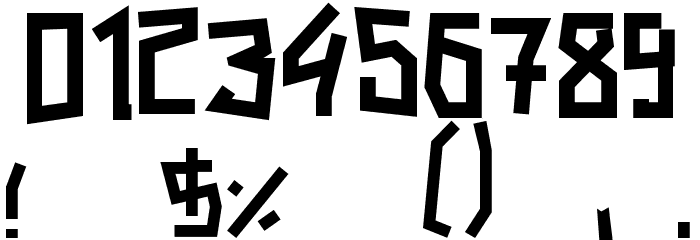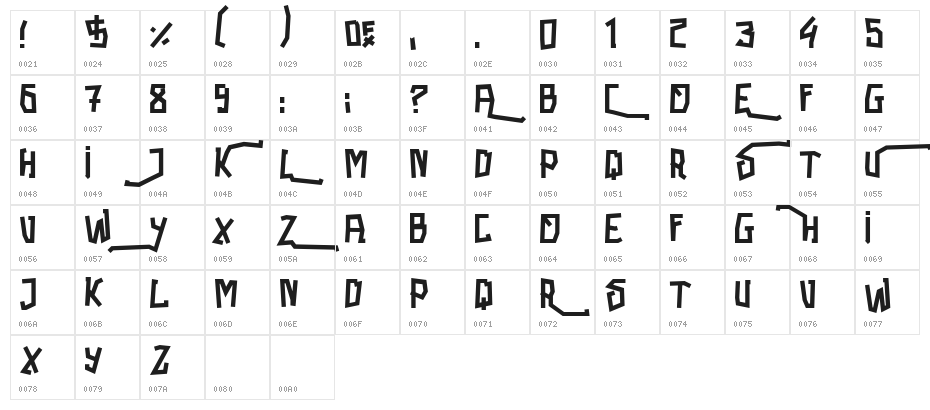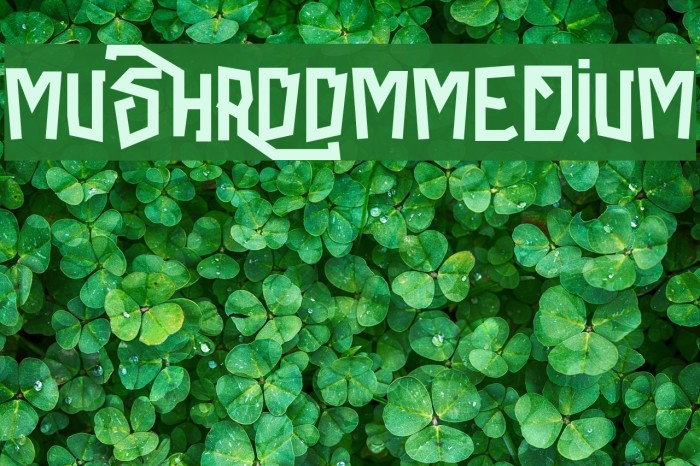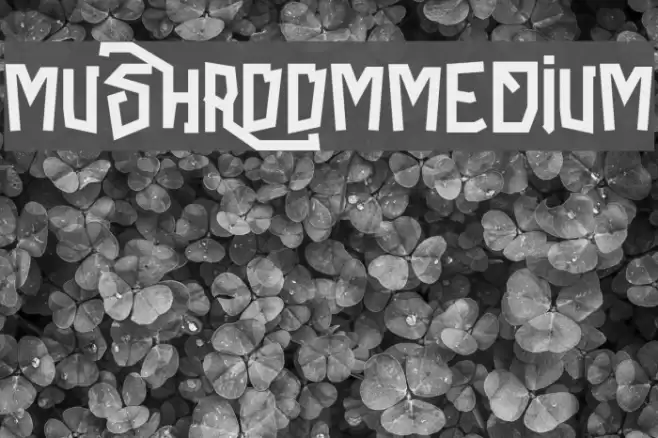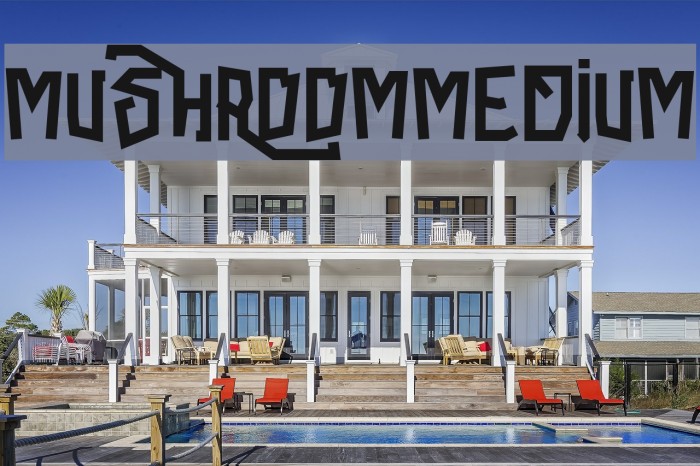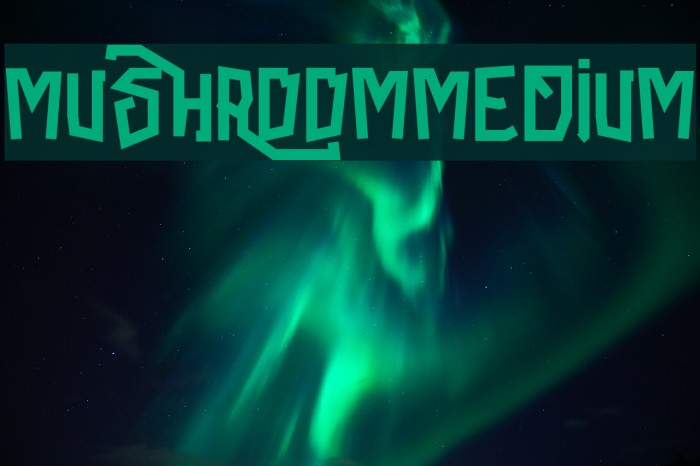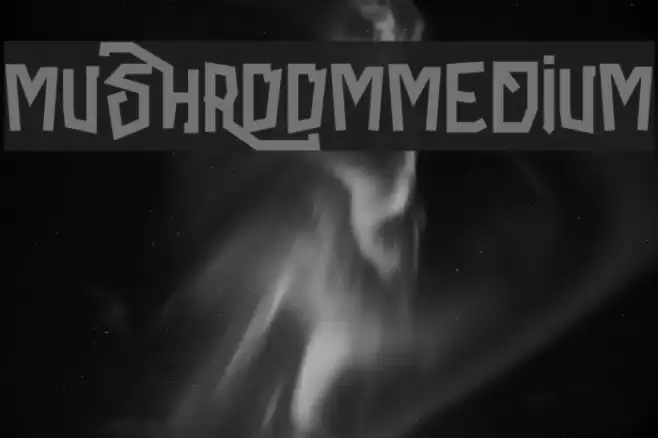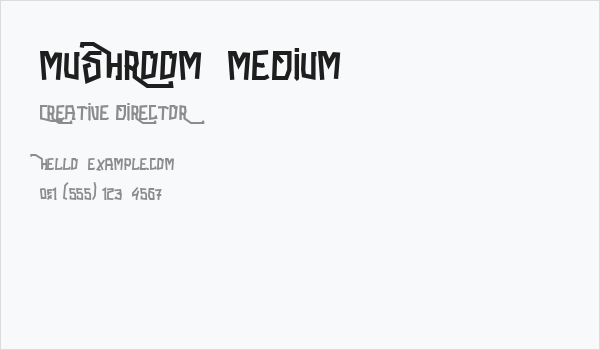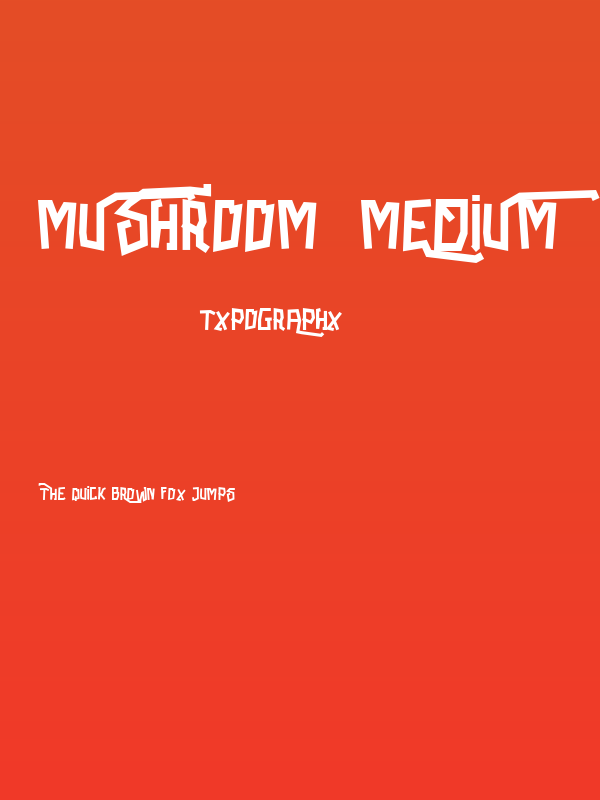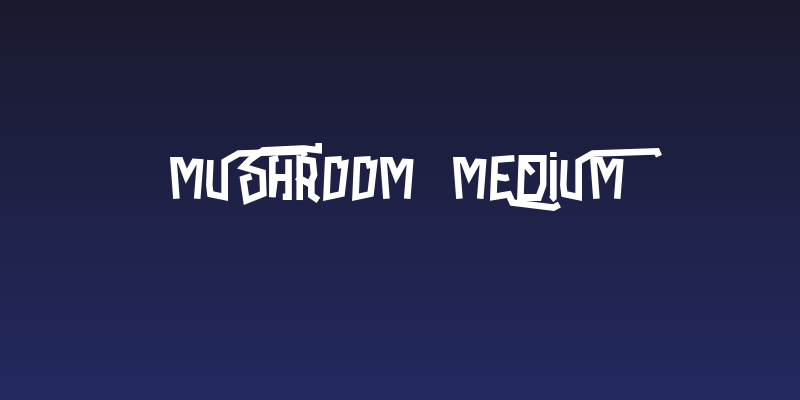
Mushroom-Medium Font
Mushroom-Medium Description
This font features a bold and geometric design with sharp angles and a distinct, edgy appearance. The characters are constructed with thick strokes and exhibit a unique, almost futuristic style. The uppercase and lowercase letters maintain a consistent width, giving the font a uniform look. The numbers and special characters follow the same angular and bold aesthetic, making them stand out. This font's design is both modern and unconventional, suitable for projects that require a strong visual impact.
| Proposed Projects | Ideal for branding, posters, video game graphics, and any project needing a bold, modern touch. |